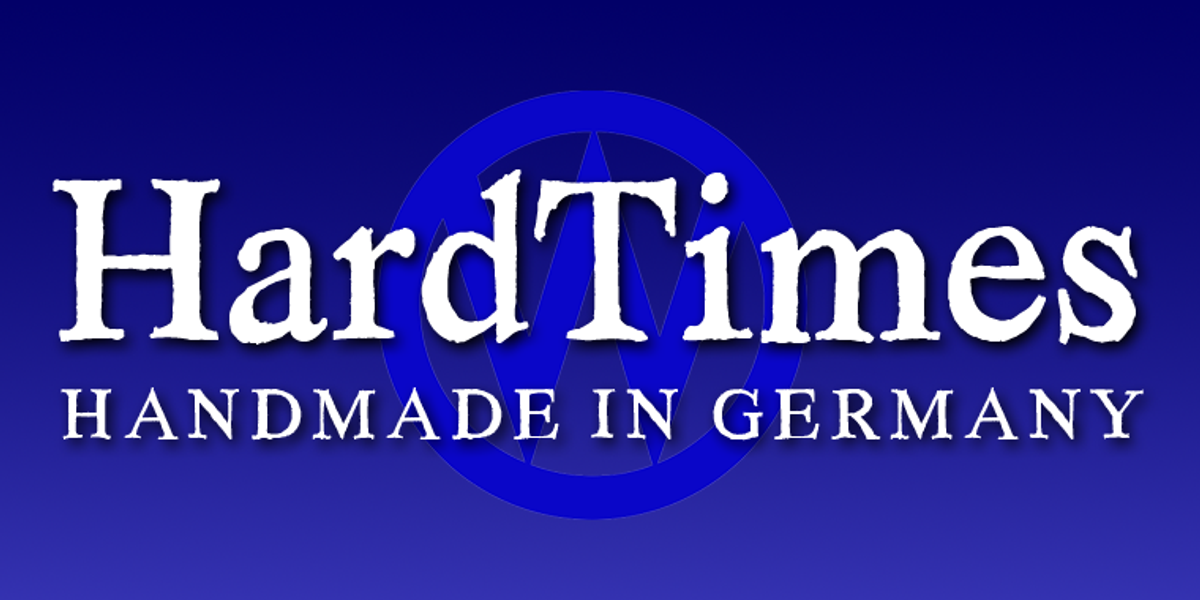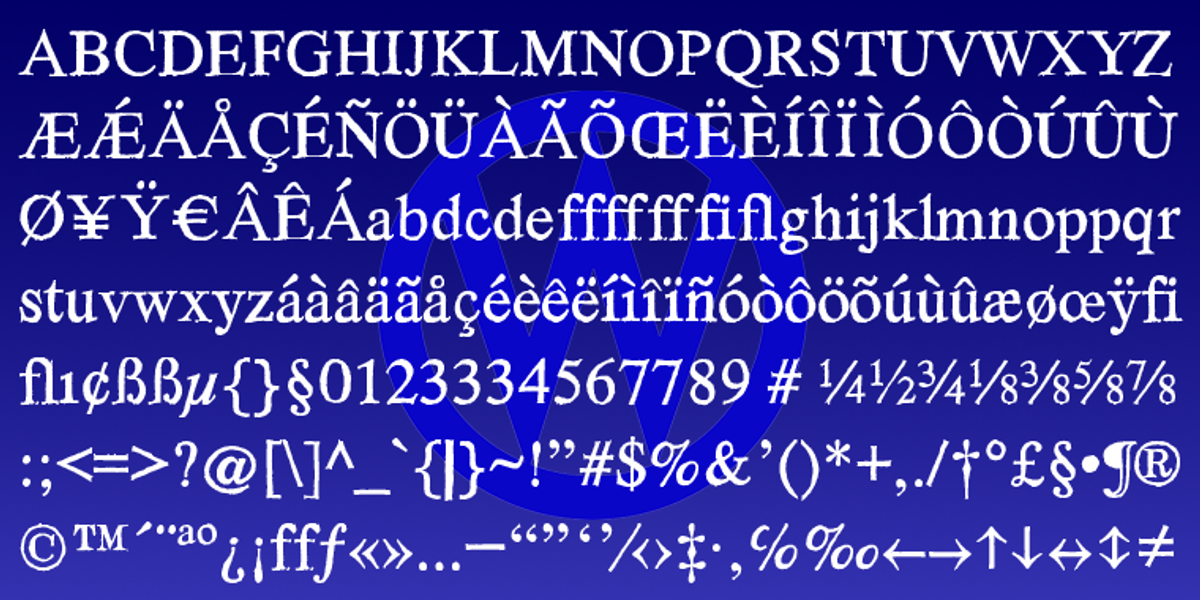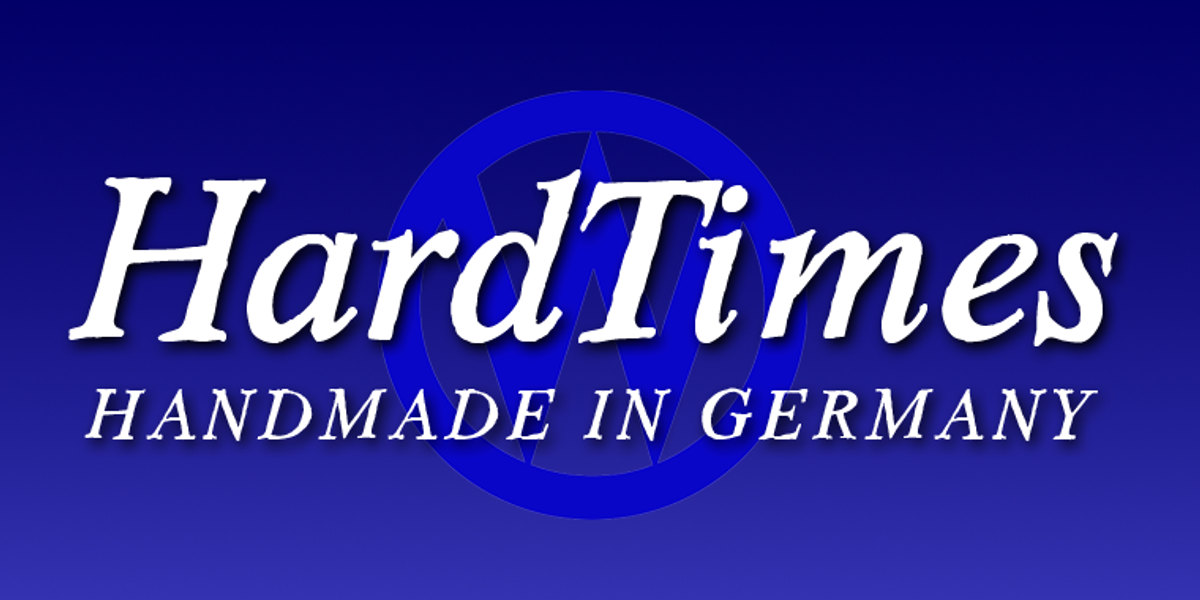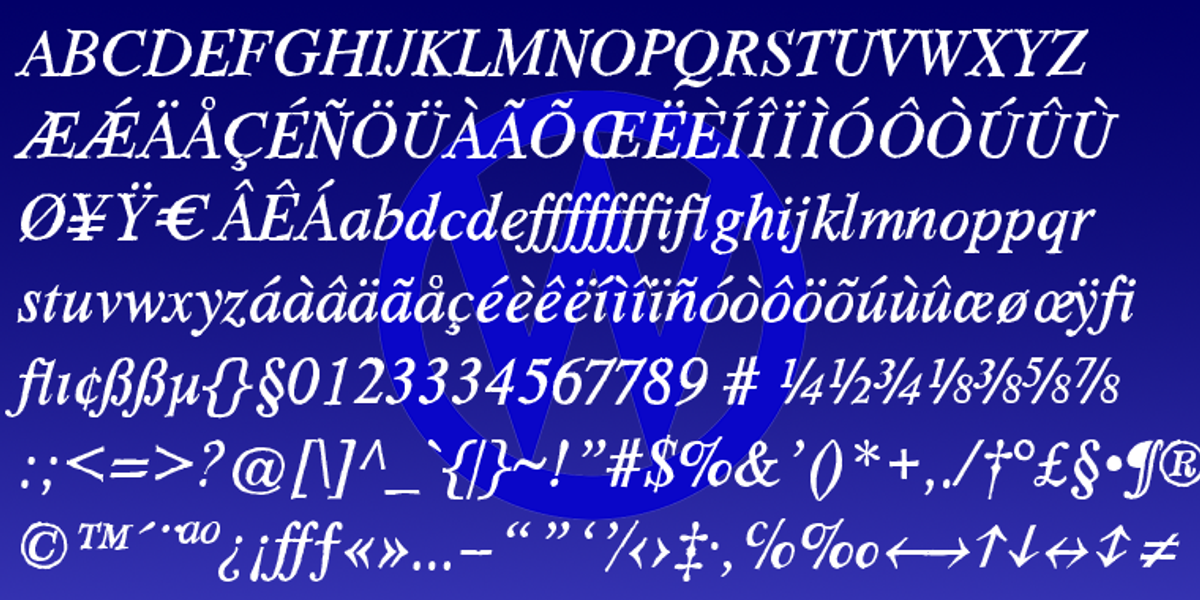
HardTimes
HardTimes is a handmade serif typeface designed by Gert Wiescher. It's categorized as an old style serif, characterized by its rough texture and high contrast. The font features extensive kerning and a broad European glyph set for versatility across different languages. Wiescher aimed to create a typeface that breaks away from the monotony of traditional Times-like fonts.